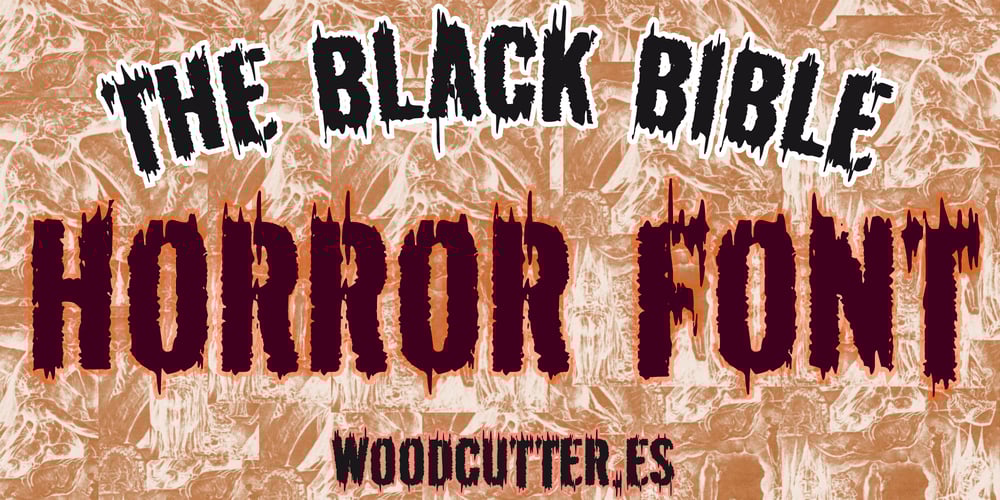
The Black Bible
The Black Bible Font Family was designed by Jordi Manero and published by Woodcutter. The Black Bible contains 1 styles and family package options. “The Black Bible” is a terrifying typeface that evokes the depths of a horror nightmare. Its uppercase letters appear torn, shattered, and eroded by the passage of dark and malevolent forces. With irregular edges and a chaotic design, it conveys a sense of chaos and danger, perfect for horror projects, grim book covers, or posters for genre films. This font combines a sinister atmosphere with a striking design, making it ideal for grabbing the attention of those seeking a truly unsettling and haunting aesthetic.